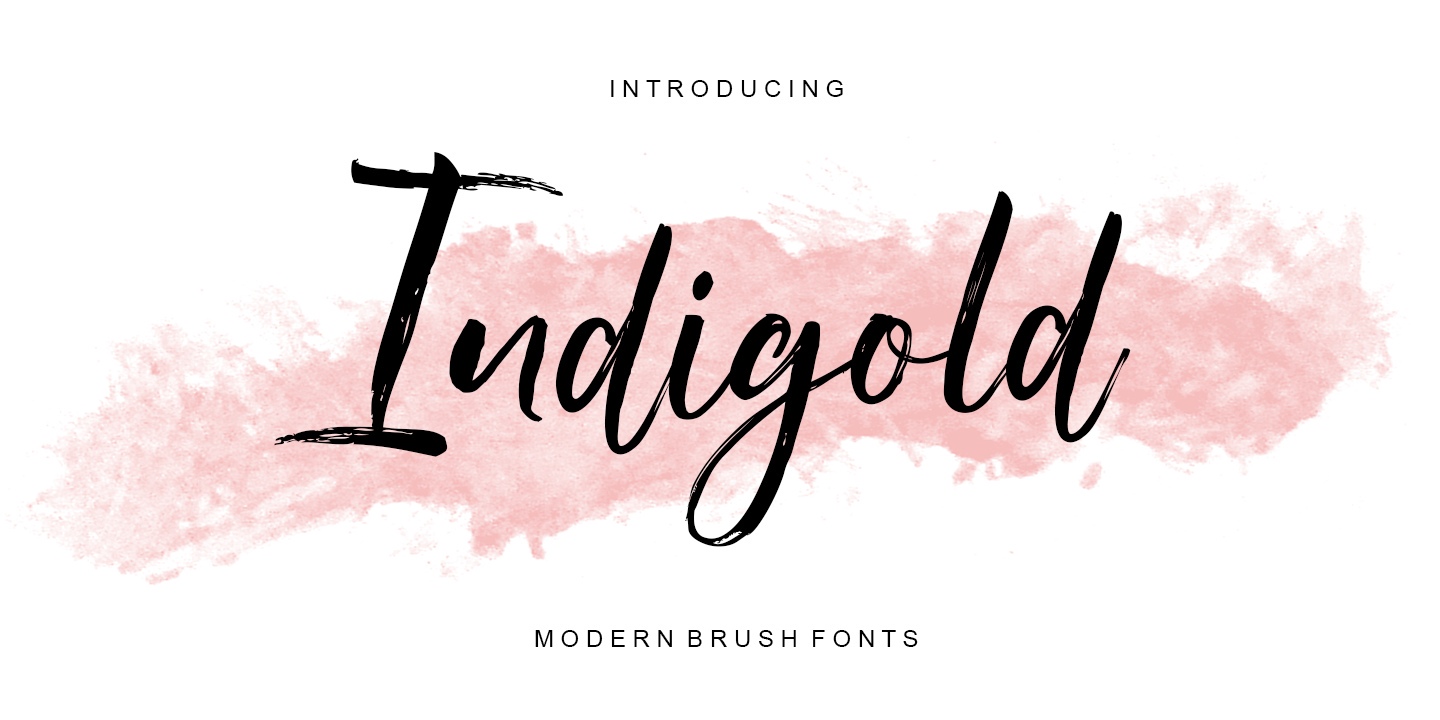
Indigold Script Font
Indigold Script Font is perfect for luxury jewelry branding, elegant premium packaging, sophisticated invitation designs, high-end fashion magazines, upscale boutique signage, exclusive event materials, refined calligraphy projects, distinguished award ceremonies, prestigious brand communications, and sophisticated luxury lifestyle applications.
What makes Indigold Script Font so exciting is its exquisite embodiment of precious metal elegance and deep sophisticated luxury that captures the lustrous beauty of indigo and gold combined through masterfully crafted script typography. This luxuriously designed typeface features flowing letterforms with precious metal proportions and jewel-inspired character variations that immediately convey opulence, sophistication, and the transformative power of luxury craftsmanship. The font's precious construction and luxury aesthetic create an instant sense of exclusive elegance and refined sophistication, making it ideal for projects that need to communicate luxury excellence, precious quality, and the life-enhancing power of sophisticated elegance to audiences seeking authentic luxury experiences and meaningful premium connections.
The Indigold Script Font family typically includes multiple luxurious weights and precious styles, often featuring light through bold variations along with elegantly flowing italic versions and luxury-optimized alternatives. Premium script font collections frequently offer additional precious elements such as gold symbols, jewel ornaments, and luxury decorations that enhance the authentic premium aesthetic and provide designers with comprehensive tools for creating genuinely luxurious and sophisticatedly elegant communications.
The luxury nature of Indigold Script Font makes it particularly effective for targeting demographics that value premium quality and sophisticated elegance in their luxury and lifestyle choices. Luxury marketers and premium brand designers will find this font especially valuable for materials that must establish immediate luxury credibility and connect with audiences seeking authentic premium experiences and meaningful sophisticated engagement.
What sets Indigold Script Font apart is its ability to convey precious luxury while maintaining the elegance necessary for effective sophisticated communication and premium brand expression. This balanced characteristic makes it suitable for both exclusive luxury applications and refined premium contexts where projecting sophisticated quality and maintaining elegant accessibility must work together harmoniously.
Professional designers recognize that Indigold Script Font brings invaluable luxury credibility to projects across industries including high-end jewelry, luxury fashion, premium hospitality, and sophisticated lifestyle branding. Its precious character and elegant appeal make it essential for organizations whose mission centers on delivering luxury excellence, promoting sophisticated elegance, and creating meaningful connections between precious quality and refined sophistication.
The systematically crafted luxury authenticity of Indigold Script Font ensures consistent premium messaging across all sophistication-focused communication applications while honoring the fundamental principles of precious craftsmanship and elegant luxury in contemporary typography.